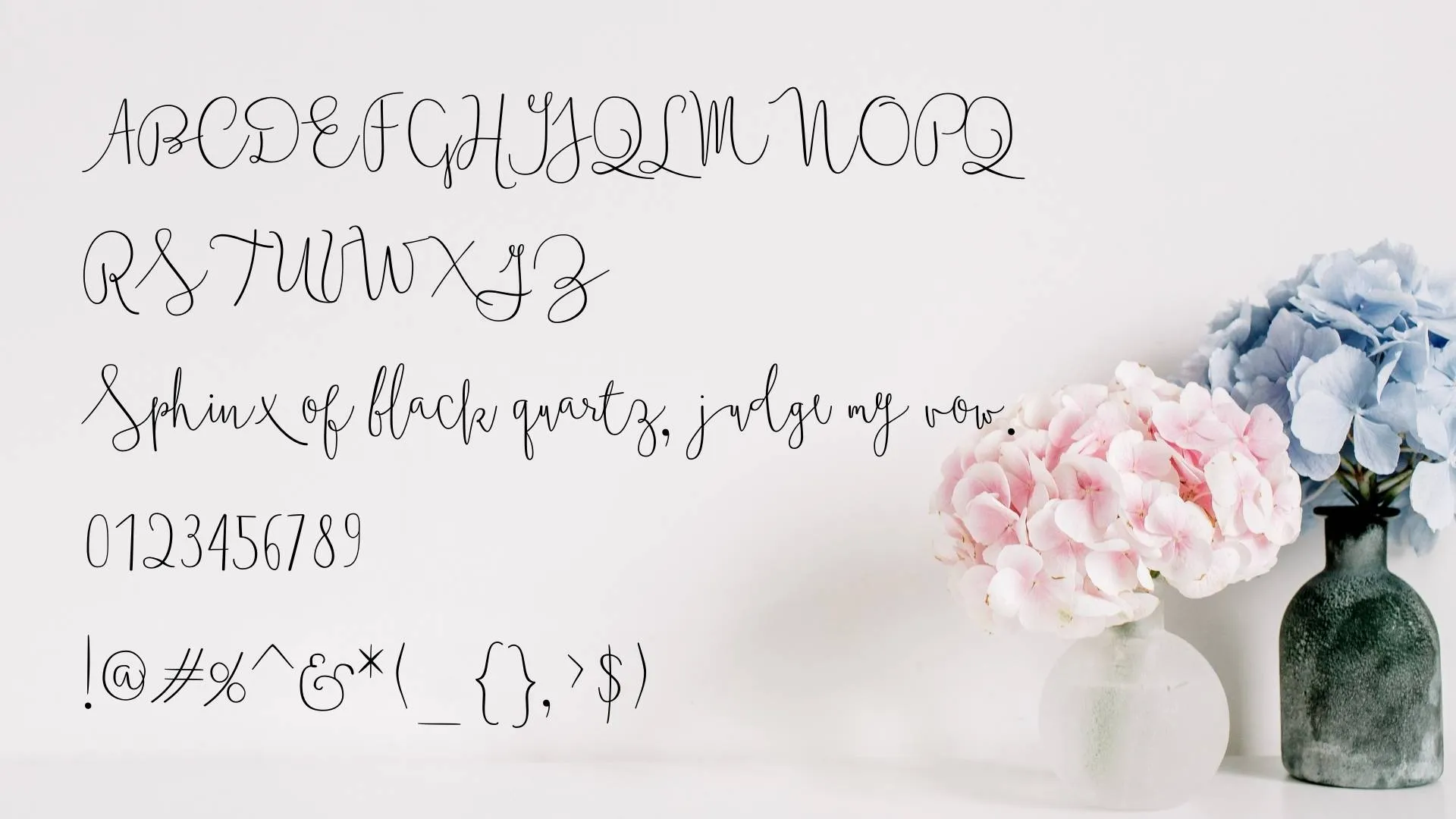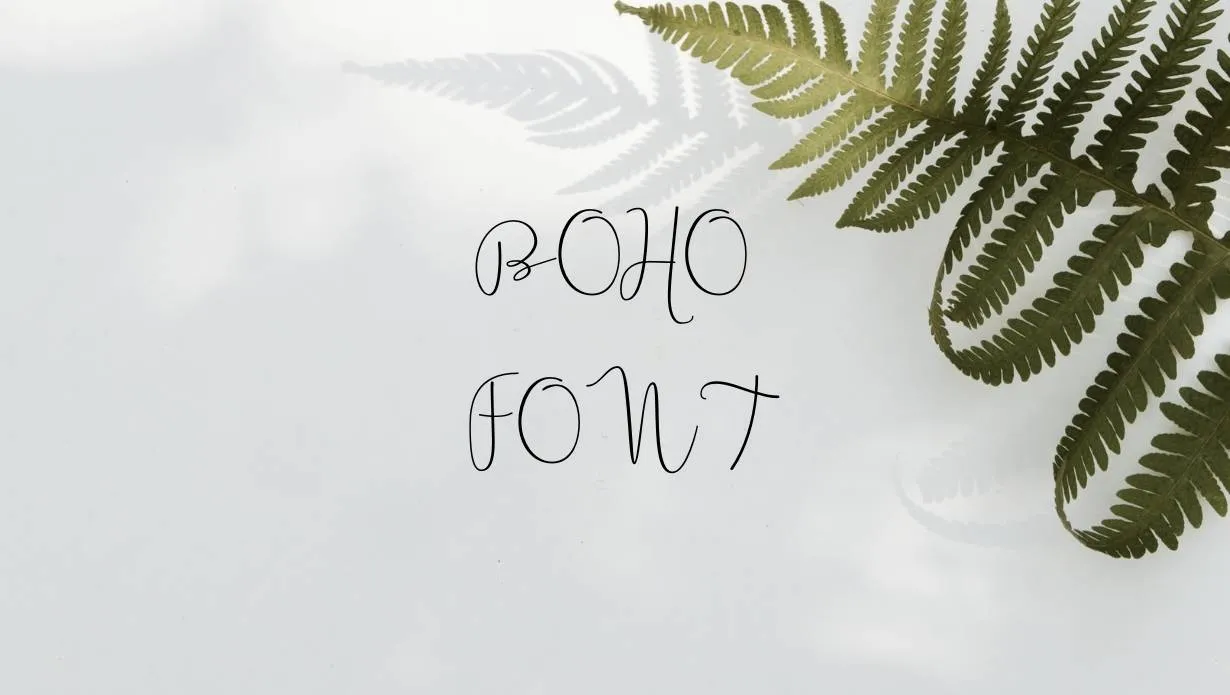
About Boho Font
Boho Font captures the essence of free-spirited bohemian lifestyle with its organic, flowing letterforms and natural aesthetic. Inspired by handmade crafts, festival culture, and artistic expression, this font features irregular edges, gentle curves, and a warm, inviting character that feels both timeless and contemporary.
Each character in Boho Font tells a story of creativity and individuality, with subtle imperfections that add charm and personality. The font's relaxed spacing and organic shapes make it perfect for projects that require a touch of handmade authenticity and artistic flair.
Design Characteristics
- Organic, flowing letterforms with natural curves
- Handmade aesthetic with subtle imperfections
- Warm, earthy color palette compatibility
- Relaxed spacing for casual readability
- Festival and nature-inspired details
- Artistic freedom and creative expression
Best Uses
- Music festival posters and merchandise
- Handmade craft business branding
- Yoga and wellness studio materials
- Organic product packaging
- Artisan coffee shop branding
- Wedding invitations with boho theme
- Creative workshop promotions
- Natural lifestyle blog graphics